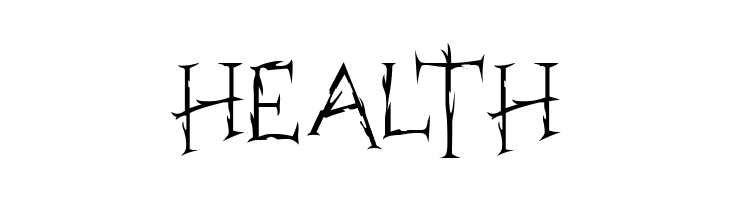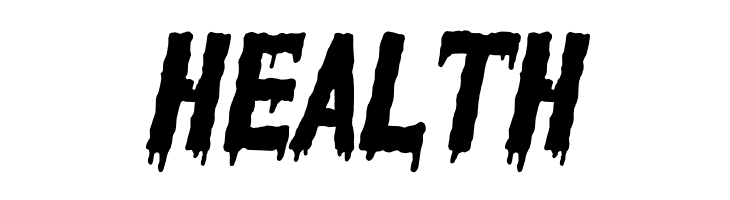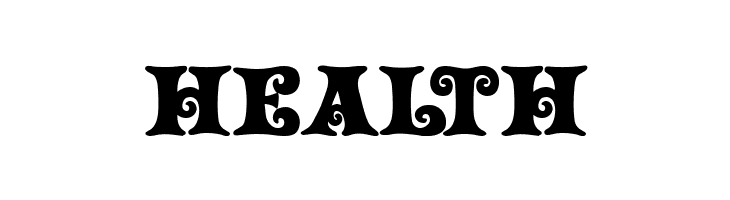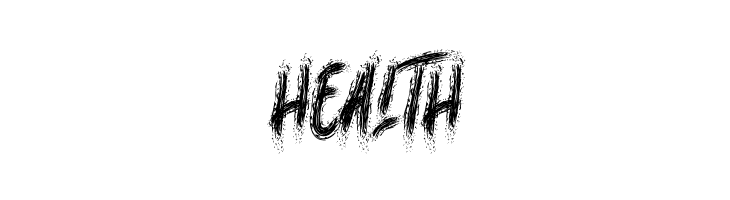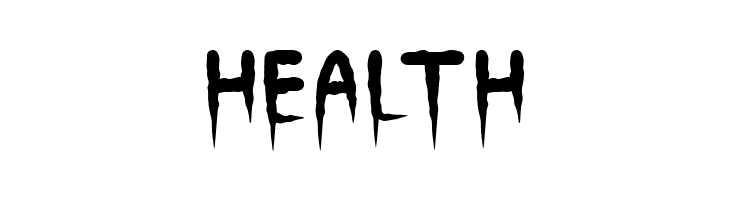
A bold, brushstroke-style font with an expressive and dynamic appearance.
A dramatic, edgy font with a rough, hand-drawn appearance.
A playful, hand-drawn font with a quirky, sketch-like appearance.
A bold, brush-style font with a grungy, distressed appearance.
A sharp, thorny font perfect for horror and gothic themes.
A sharp, jagged font with a horror-inspired design, perfect for suspenseful themes.
A jagged, eerie font ideal for horror themes.
A jagged, eerie font perfect for horror themes with scratch-like strokes.
A bold, decorative font with a spooky, horror-themed aesthetic.
A bold, jagged font with a horror-themed, dripping effect.